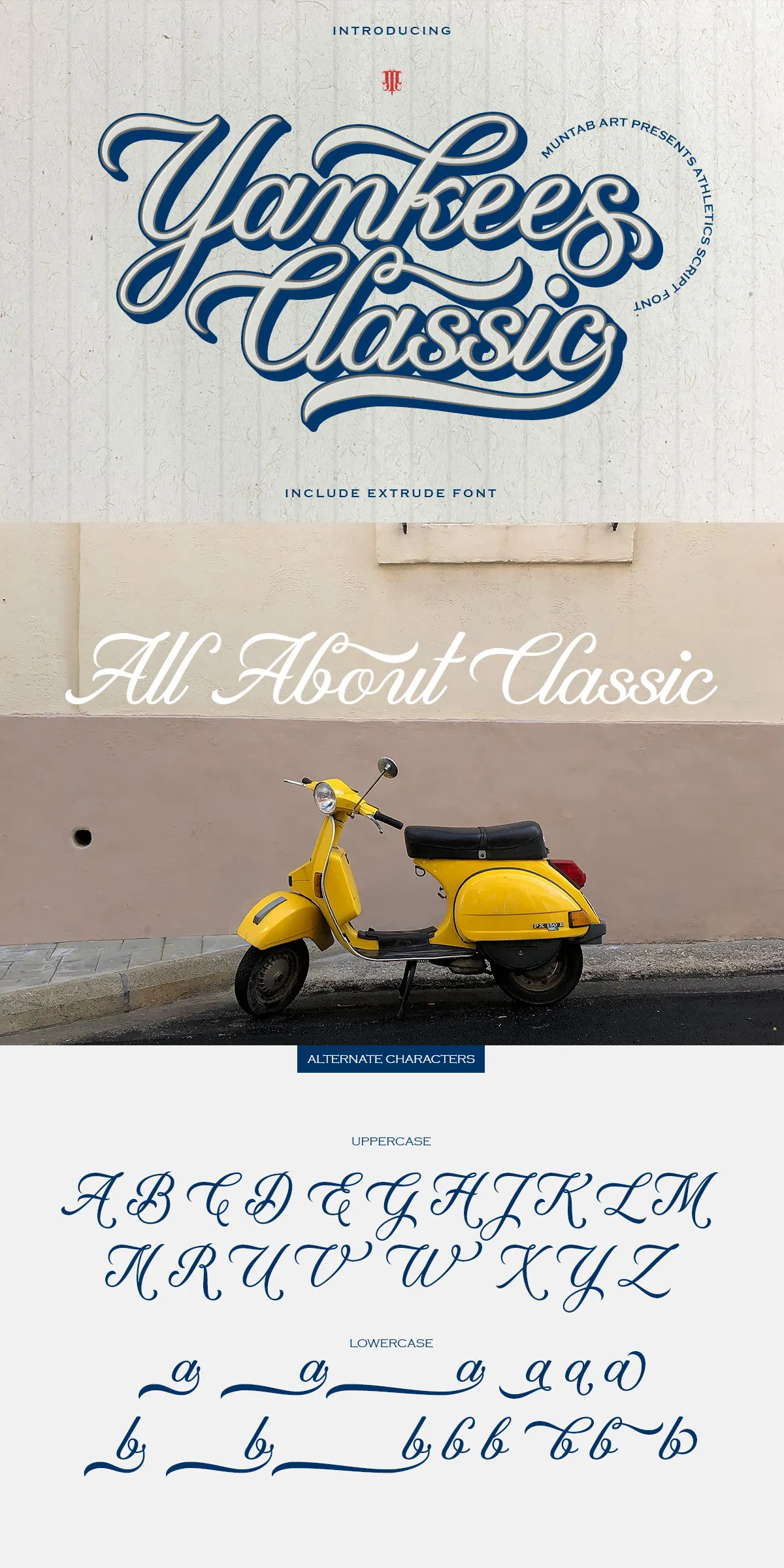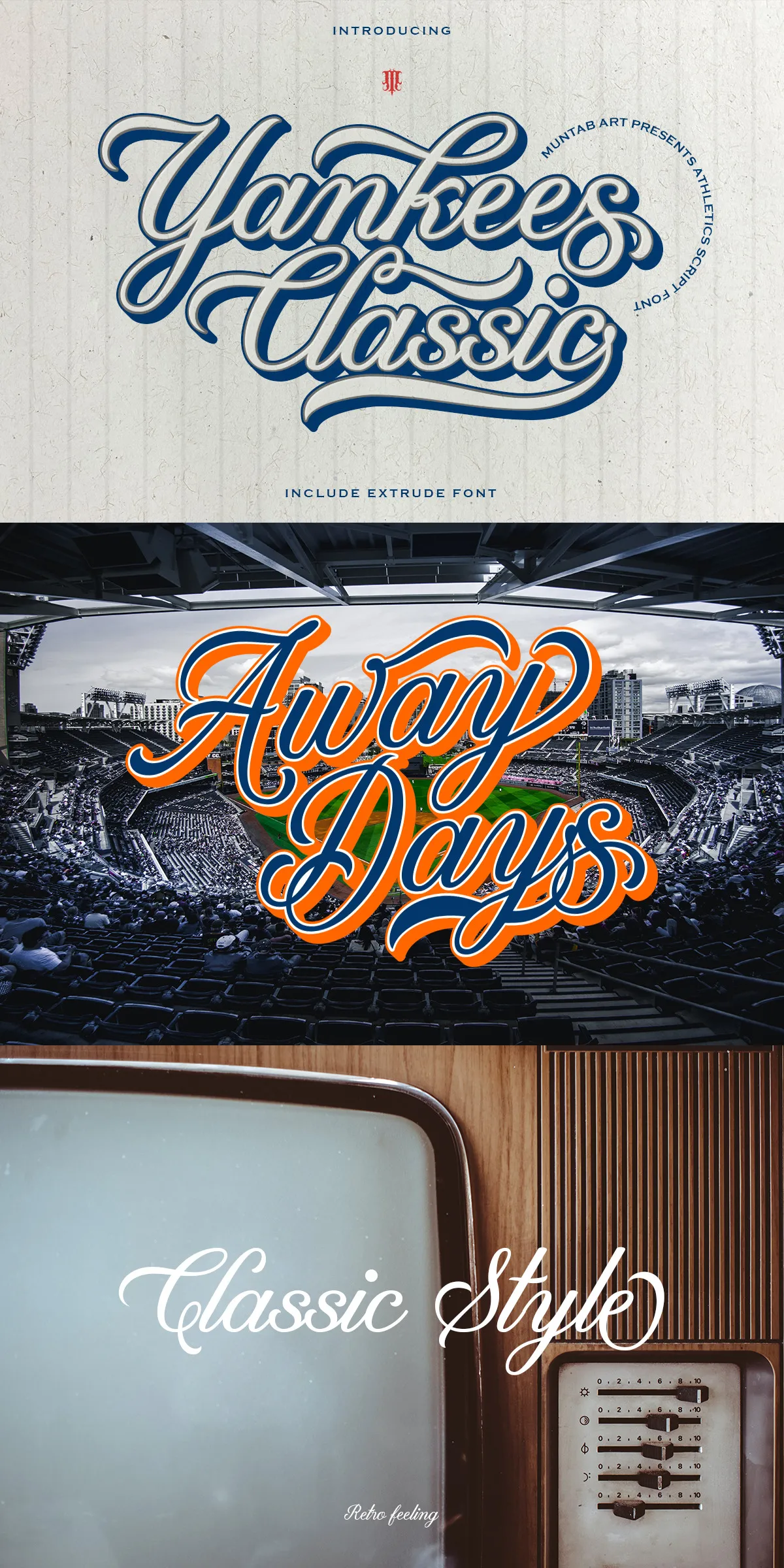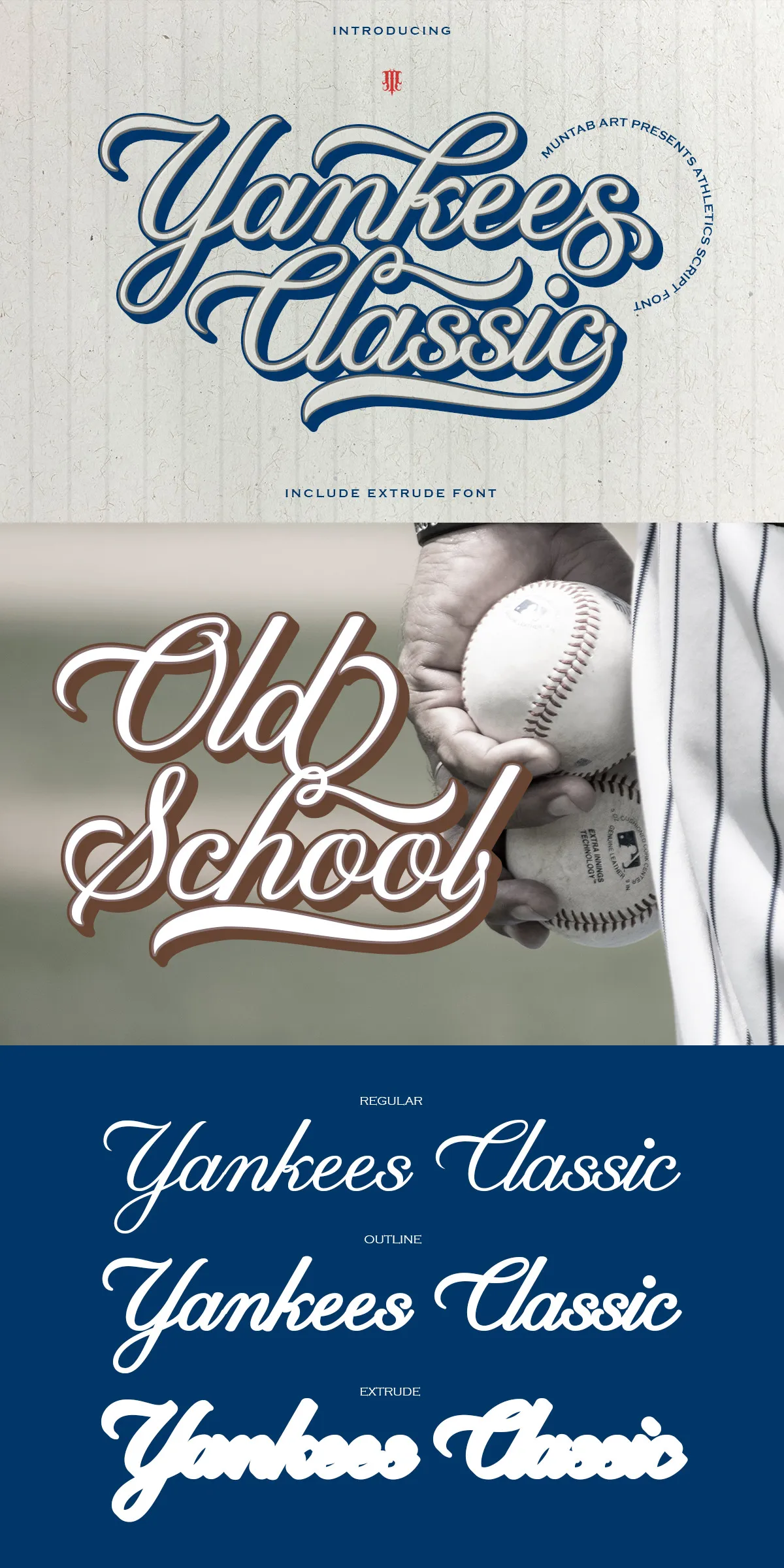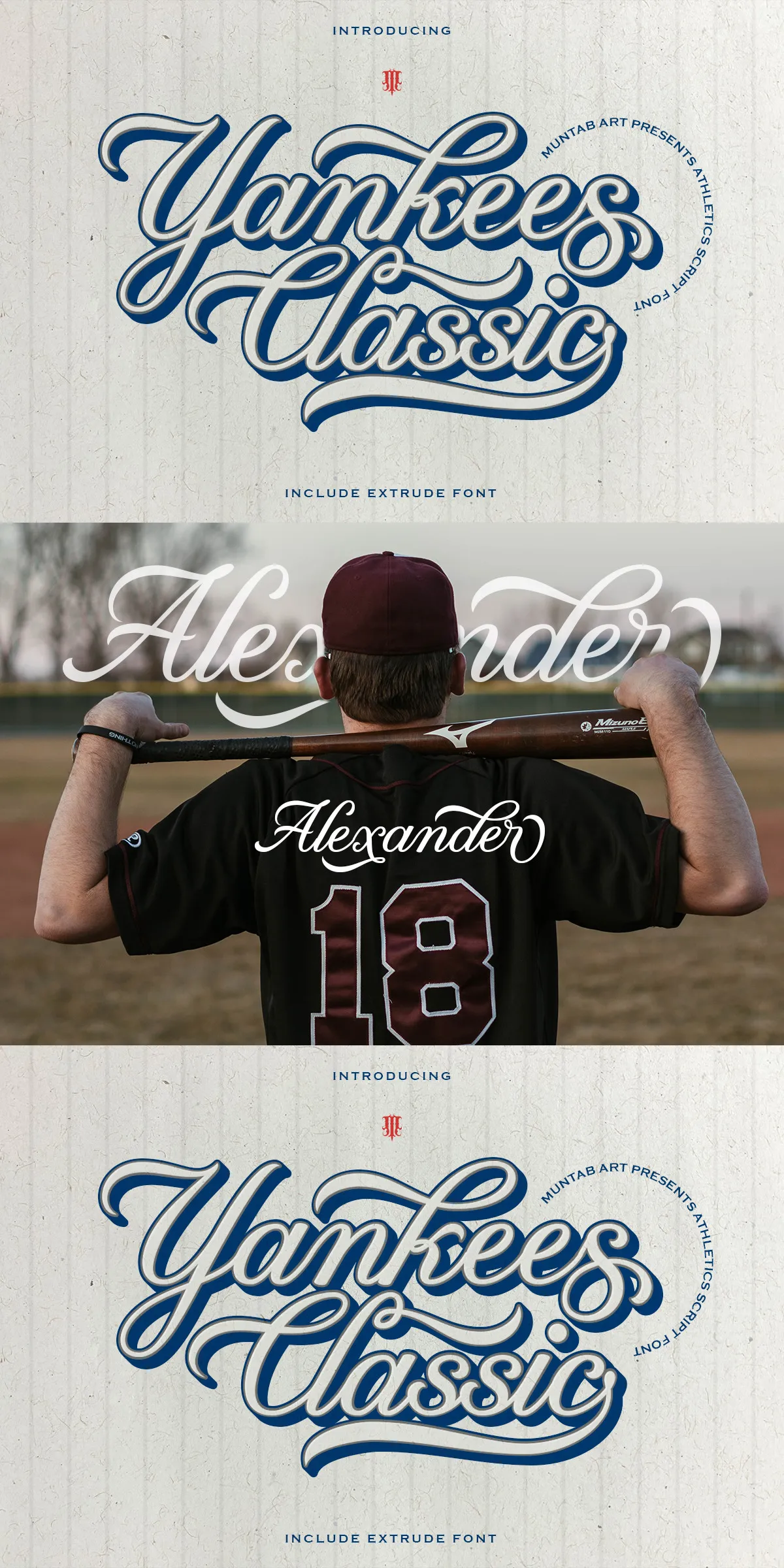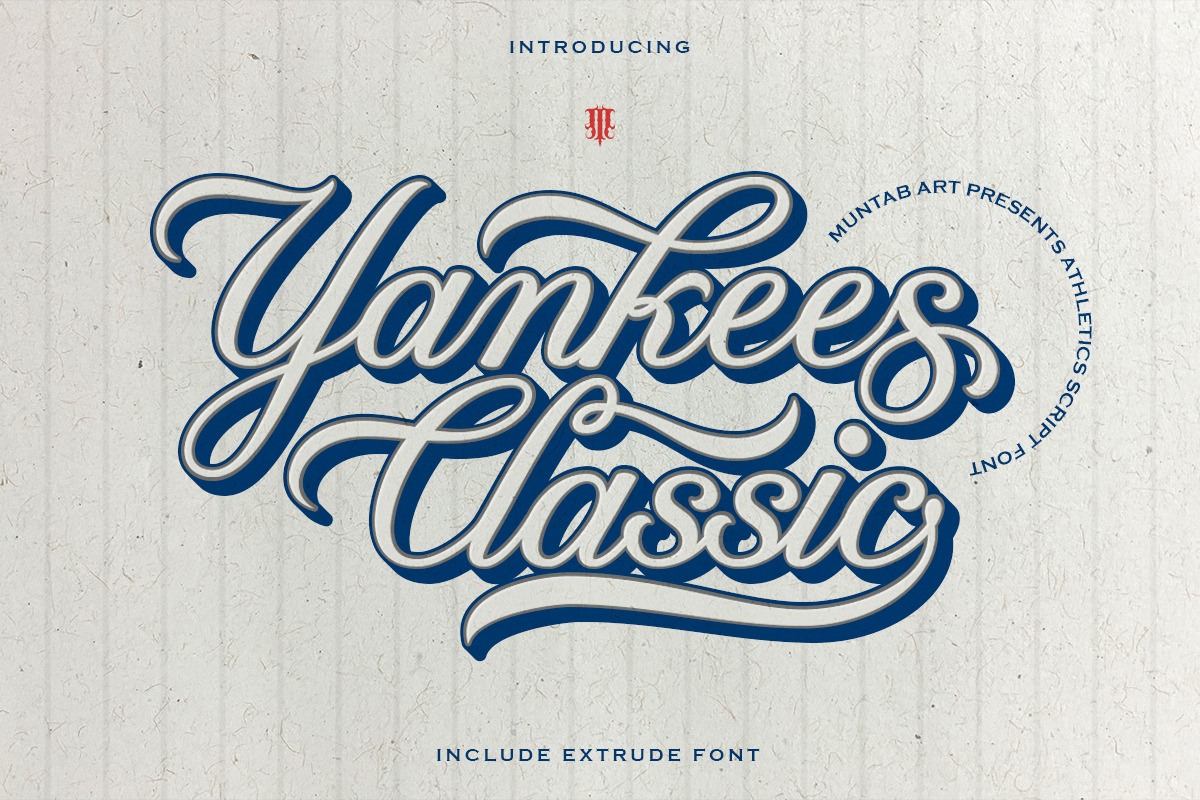
Yankees Classic Font stands out as a dynamic and versatile typeface, designed to meet the needs of diverse creative projects. This font encompasses a wide array of characters, including uppercase and lowercase letters, numerals, and an extensive range of punctuation marks. Additionally, it features alternative characters, stylistic sets, extrude fonts, and ligatures, making it a comprehensive tool for designers who demand flexibility and style in their typography.
Dynamic Depth with Extrude Font Style
One of the most exciting offerings in the Yankees Classic Font family is the Extrude font style, available in both OTF and TTF formats. This style introduces a three-dimensional effect, giving your lettering added depth and presence. It’s ideal for creating impactful headlines, eye-catching logos, and packaging designs that stand out in competitive markets. The extrude effect engages viewers and enhances the perceived value of your brand visuals.
Extensive Character Support and Special Features
Beyond basic letterforms, Yankees Classic Font integrates a broad set of special features designed to boost your typographic creativity. This includes uppercase and lowercase letters for versatile text composition, comprehensive numerals for prices, dates, and statistics, as well as an extensive range of punctuation to maintain textual clarity and professionalism.
Alternate Characters and Stylistic Sets
The font’s alternate characters and stylistic sets provide powerful options for customization. These features allow you to tailor your typography to suit different themes and moods, from bold and assertive to playful and creative. Ligatures further enhance the smoothness and fluidity of your text, ensuring your design maintains cohesion and readability across different sizes and applications.
Perfect for Multiple Applications and Platforms
Yankees Classic Font’s versatility extends across digital, print, and branding applications. Whether you’re designing logos, promotional materials, apparel graphics, or editorial layouts, this typeface supports a range of expressive possibilities. The inclusion of both standard and extruded forms widens your design palette, encouraging experimentation and creative expression.
Why Choose Yankees Classic Font for Your Design Projects?
If you seek a font that balances classic typographic elegance with modern functionality, Yankees Classic Font is the ideal choice. Its broad character set, multiple styles including outline and extrude, and specialized features empower designers to produce bold, memorable, and professional work. Engage your audience with typography that performs across all media and leaves a lasting impression.